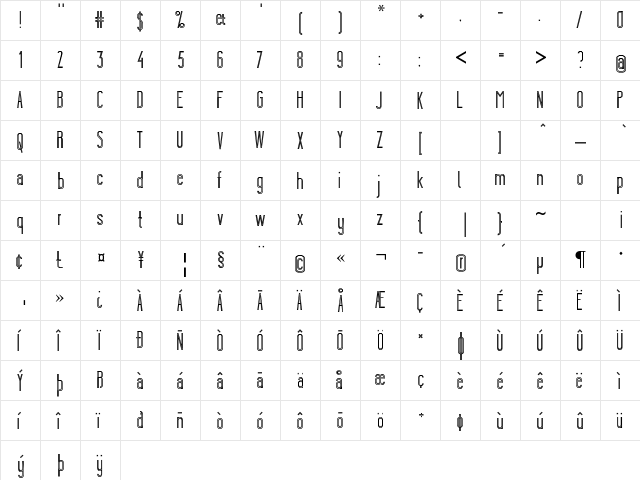
Ygraine Skeleton
| Style | Skeleton |
| Designer | Type Sailor - David Espinosa |
Design Context for Ygraine Typeface
Ygraine is a composed and adaptable typeface that performs quietly and consistently across a wide range of design contexts.